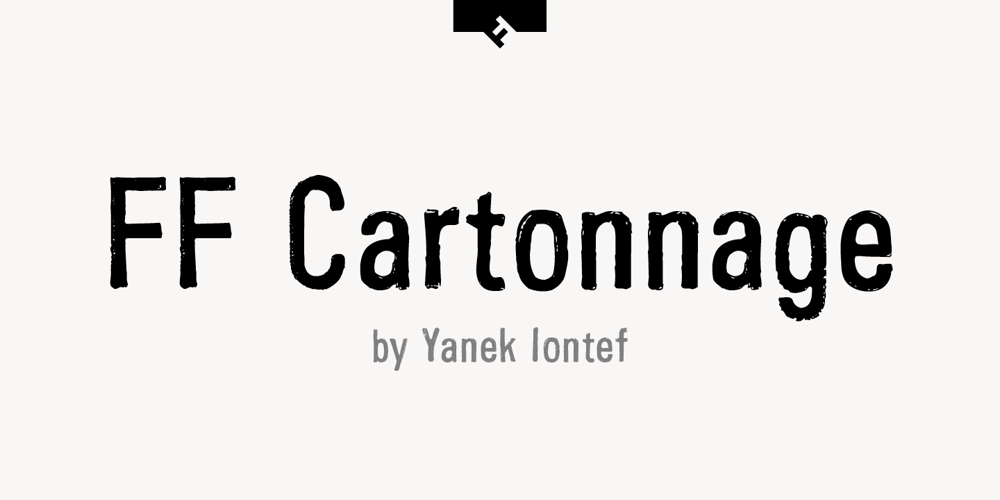
FF Cartonnage
FF Cartonnage font
FF Cartonnage Font Family was designed by Yanek Iontef and published by FontFont. FF Cartonnage contains 2 styles and family package options. Israeli type designer Yanek Iontef created this display FontFont between 2003 and 2011. The family contains 2 weights and is ideally suited for advertising and packaging, film and tv, logo, branding and creative industries, poster and billboards as well as sports. FF Cartonnage provides advanced typographical support with features such as ligatures, alternate characters, case-sensitive forms, fractions, super- and subscript characters, and stylistic alternates. It comes with proportional oldstyle and proportional lining figures.